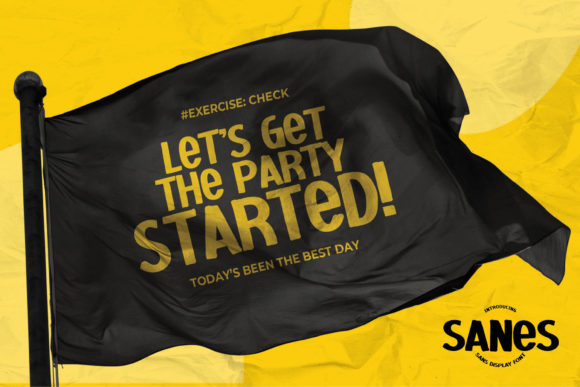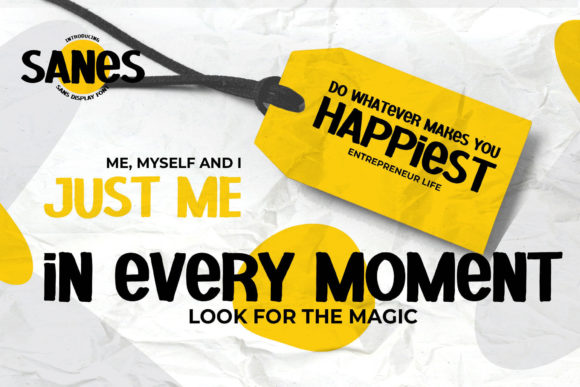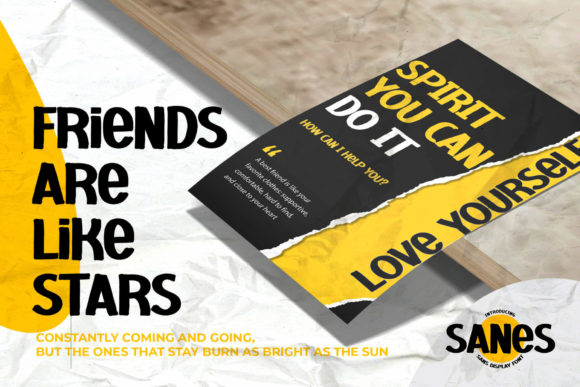
Introduction to Sanes Font
Introducing SANES, a sans serif font that looks incredibly authentic.
It is written casually and quickly, then scanned and carefully drawn into a vector format This handmade font will make your design more beautiful and natural.
Key Features of Sanes Font